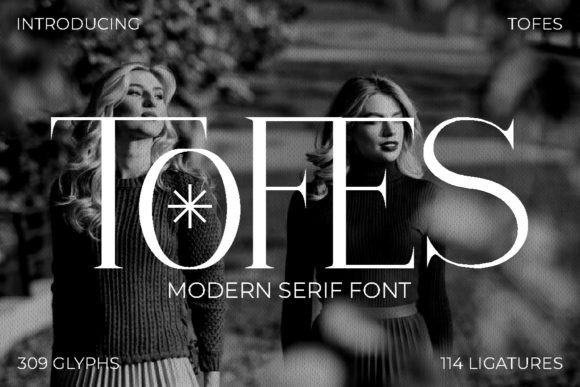
Introducing Tofes Font, the epitome of elegance and sophistication for your designs. Inspired by the Hebrew word for "apple," symbolizing beauty and perfection, Tofes embodies a classic and modern style that will captivate your audience.
Its clean lines and modern aesthetic create a timeless appeal, making it the perfect choice for branding, packaging, logos, and more. Whether you're aiming for a romantic, elegant, or luxurious touch, Tofes effortlessly elevates your designs to new heights.
Crafted with the utmost precision, each letter in the Tofes family exudes refinement. The font's versatility extends to its wide range of features, including uppercase and lowercase letters, Opentype features, and international language support.
With Tofes at your fingertips, you'll effortlessly portray the essence of quality and sophistication in your branding and design projects. Its versatility ensures seamless integration into various design elements, empowering you to convey your message with impact.
Don't miss out on the opportunity to enhance your designs with the captivating allure of Tofes Font. Its timeless charm and modern touch will transform your creative visions into unforgettable experiences.
Immerse yourself in the world of Tofes, where elegance meets modernity, and let your designs shine with brilliance.